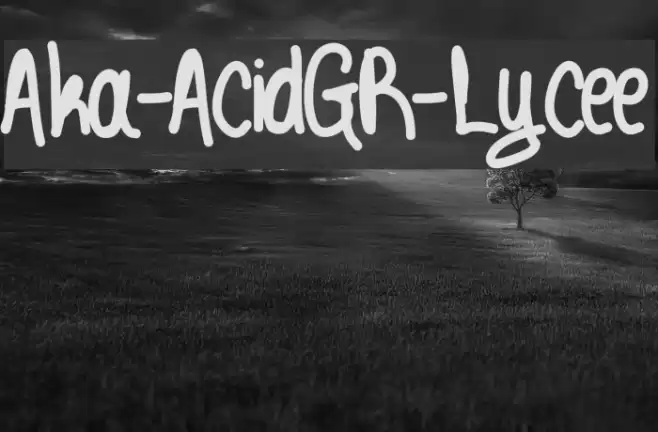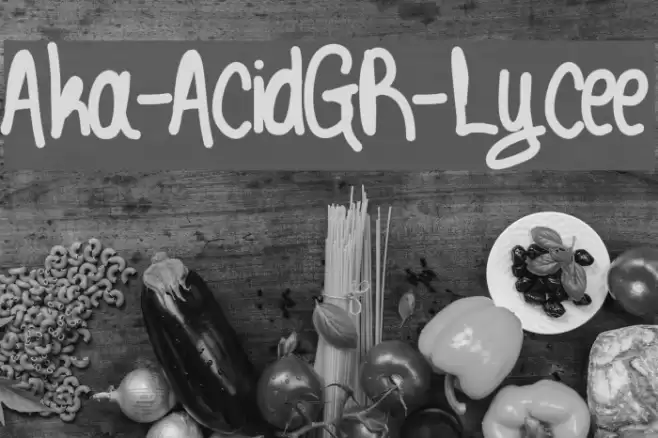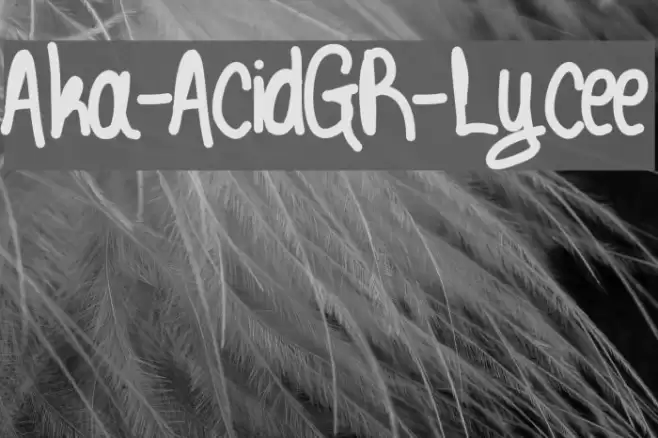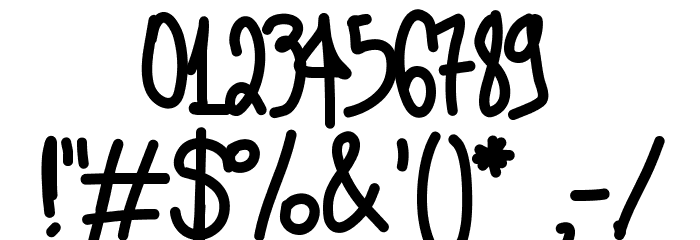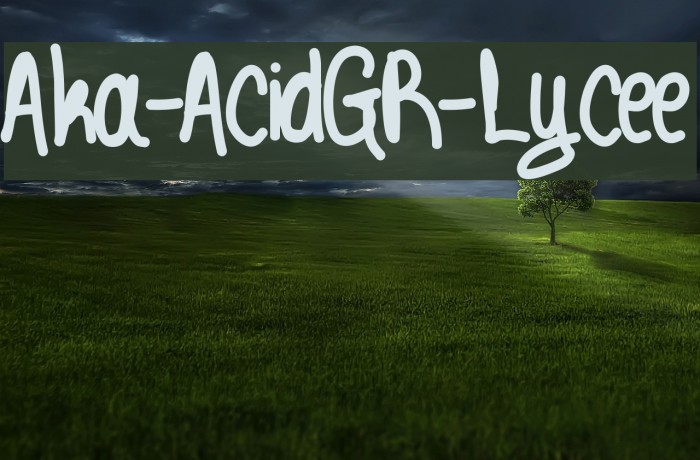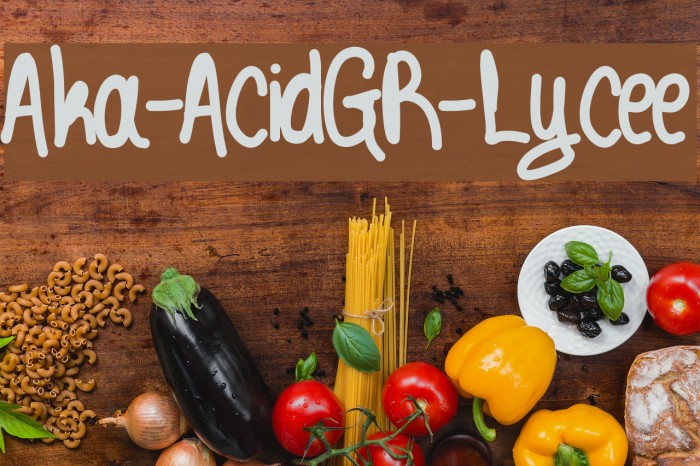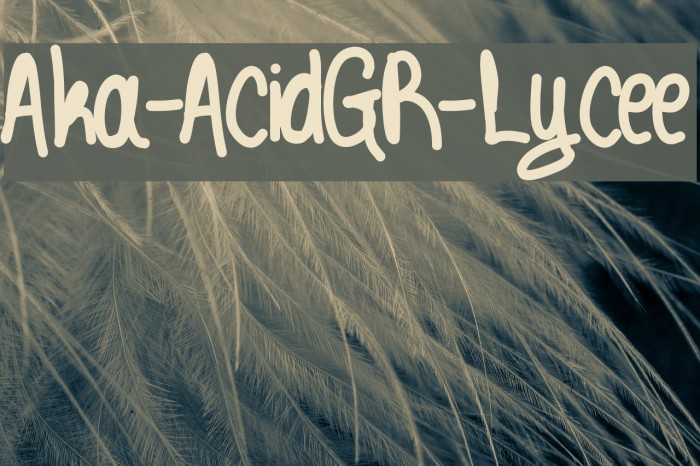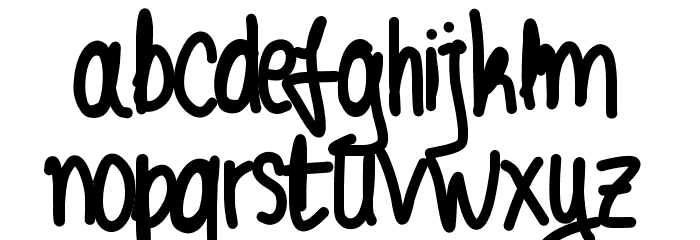
Aka-AcidGR-Lycee Font
Aka-AcidGR-Lycee Description
This font features a playful and energetic handwritten style, characterized by its bold and slightly irregular strokes. The letters have a casual, informal appearance, with a dynamic flow that suggests movement and spontaneity. The uppercase and lowercase letters maintain a consistent style, with rounded edges and a slightly exaggerated height. Numbers and special characters are designed to match the lively aesthetic, making them suitable for creative and informal projects. The overall look is approachable and friendly, making it ideal for designs that aim to convey warmth and personality.
A bold, playful handwritten font with a lively and informal style from Uncategorized fonts.
- Proposed Projects: Ideal for greeting cards, children's books, playful branding, and social media graphics.
- Overall Style: Playful
- Use Case: Logos, Headlines, Informal text